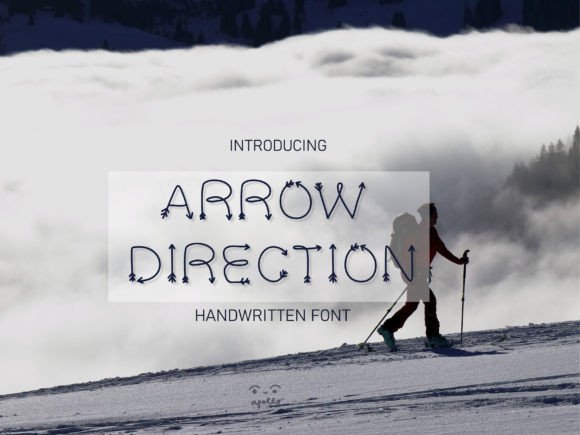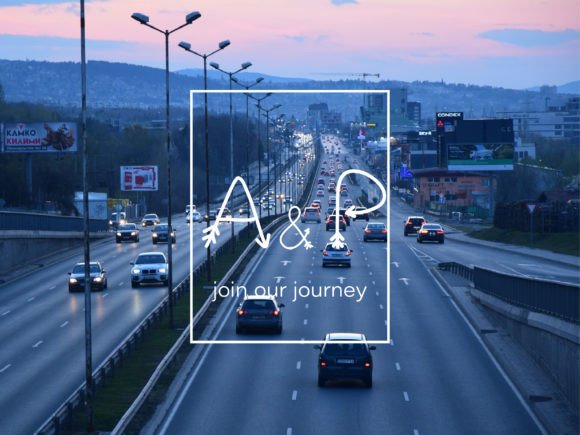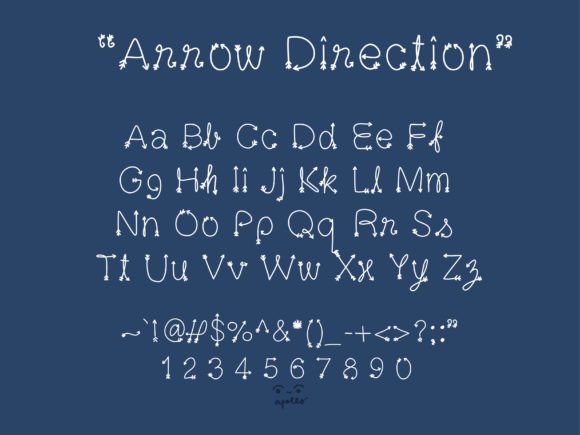
Arrow Direction Font
Add Stylish Flair with Arrow Direction Font
The Arrow Direction font is a stylish and cool handwritten script designed to bring natural uniqueness and personality to your creative projects. Whether you’re working on travel-themed designs, road signage, branding, or artistic layouts, Arrow Direction adds a fresh and dynamic vibe that captivates attention.
Perfect for Travel Themes, Road Signage, and Creative Designs
The Arrow Direction font fits perfectly across a wide range of applications including maps, travel guides, event posters, logos, and digital graphics. Its natural flow and unique style make it incredibly versatile, ideal for projects where direction and movement are key themes.
A Handwritten Script with Natural Style
Each character in the Arrow Directionfont is carefully crafted to mimic authentic handwriting with smooth, flowing strokes. This font balances simplicity with style, offering readability and aesthetic appeal for both headlines and detailed text.
Despite its cool and decorative style, the Arrow Direction font maintains excellent readability at all sizes. Whether used for signage, logos, or smaller text, it balances clarity with flair, making it a versatile choice for many creative projects.
Make Your Designs Shine with Unique Energy
Typography plays a vital role in shaping your design’s personality, and Arrow Direction adds a natural and stylish spirit. If you want to elevate your projects with a cool and unique handwritten script, download the Arrow Directionfont today and create memorable, dynamic visuals.